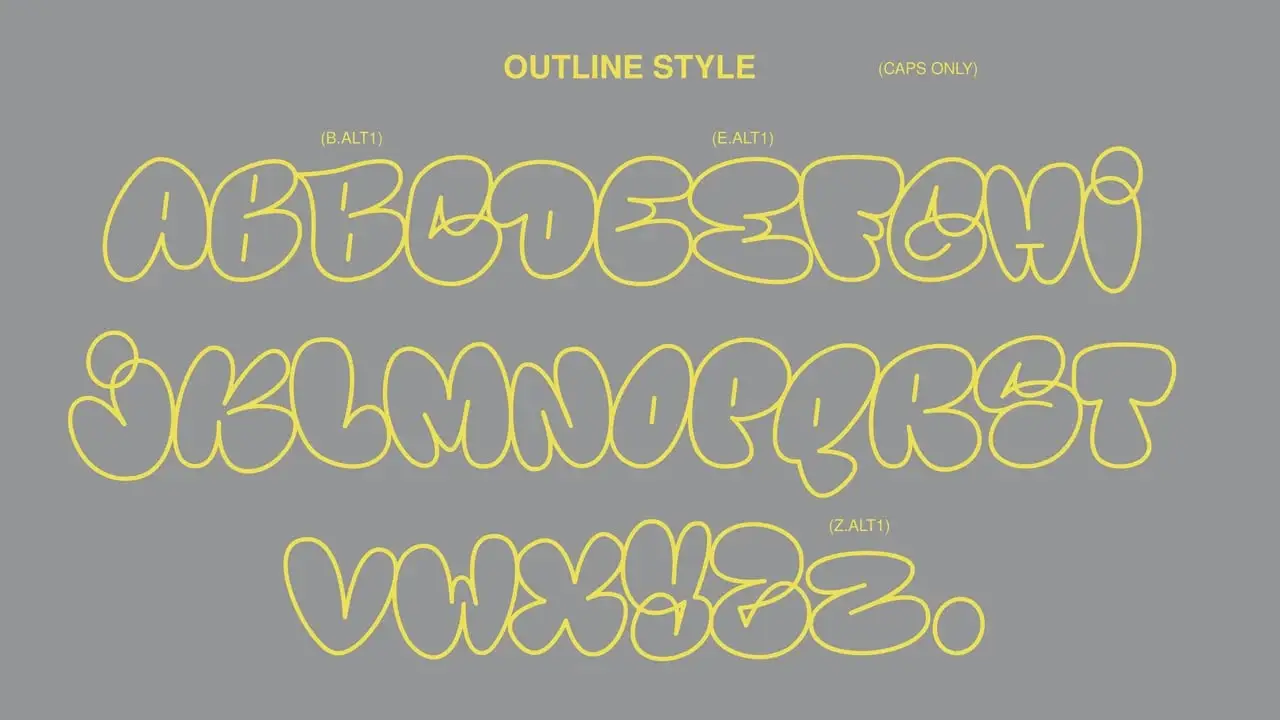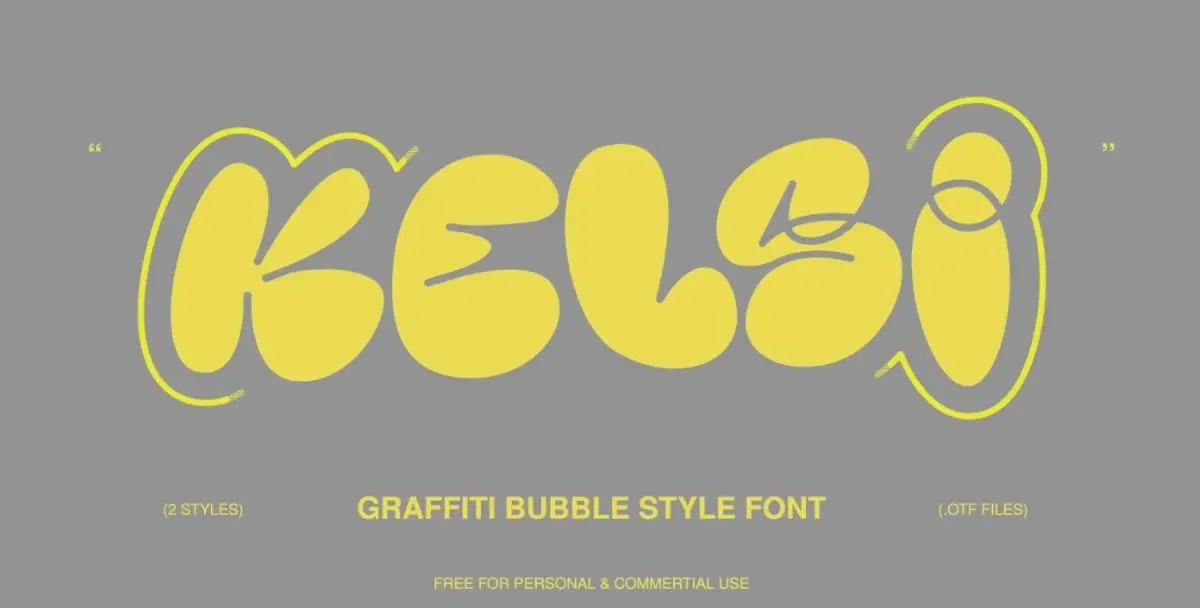
Kelsi Free Graffiti Bubble Style Font
The Kelsi Free Graffiti Bubble Style Font is a vibrant and playful typeface that captures the essence of street art. With its bold, rounded letters, this font is perfect for projects that require a fun and energetic look.
• Unique bubble-style design